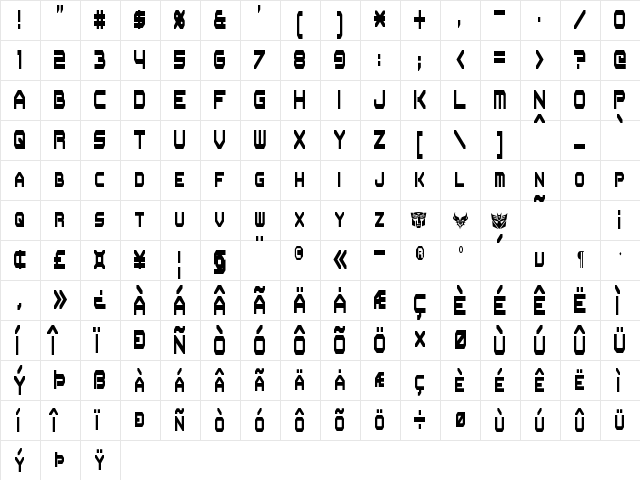
Flipbash Condensed Regular
| Designer | Neale Davidson |
Design Context for Flipbash Condensed Typeface
Flipbash Condensed is a composed and adaptable typeface that performs quietly and consistently across a wide range of design contexts. The condensed width makes it efficient for tight spaces without sacrificing legibility.